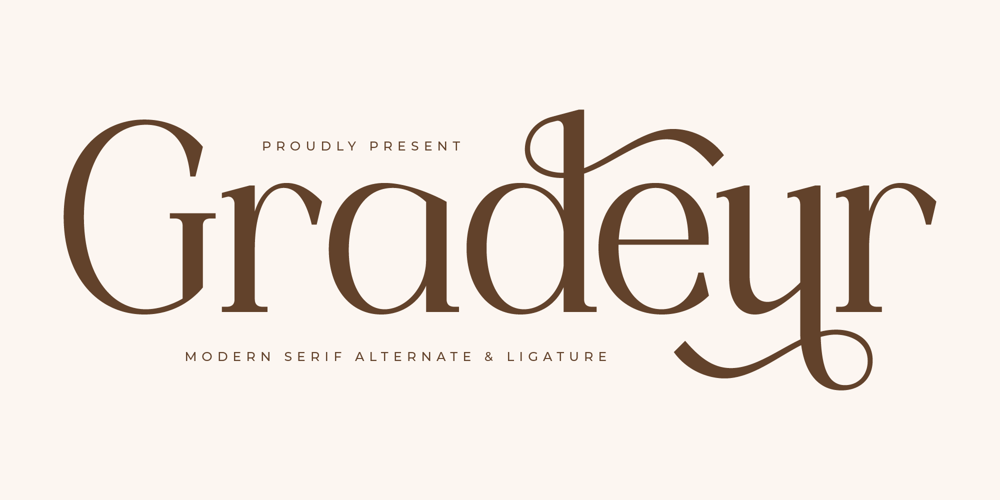
Gradeur Font Family was designed by Heru Utama Putra and published by Letterena Studios. Gradeur contains 2 styles and family package options. Proudly present Gradeur Typeface.A serif modern and classic typeface that has its own unique style & modern look.This typeface is perfect for an elegant & luxury logo, book or movie title design, fashion brand, magazine, clothes, lettering, quotes, and so much more.This font is PUA encoded which means you can access all of the amazing glyphs and ligatures with ease!